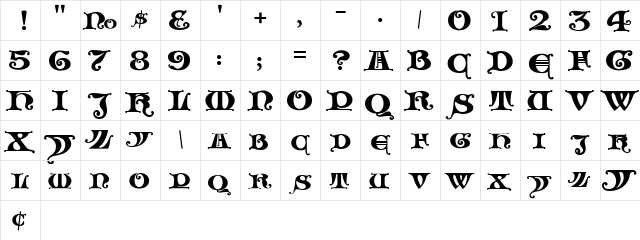
LHF Henderson Church Regular
Design Context for LHF Henderson Church Typeface
LHF Henderson Church is a composed and adaptable typeface that performs quietly and consistently across a wide range of design contexts.
Pro Tip: Use LHF Henderson Church in both headline and body roles to test its range before committing to a single application.